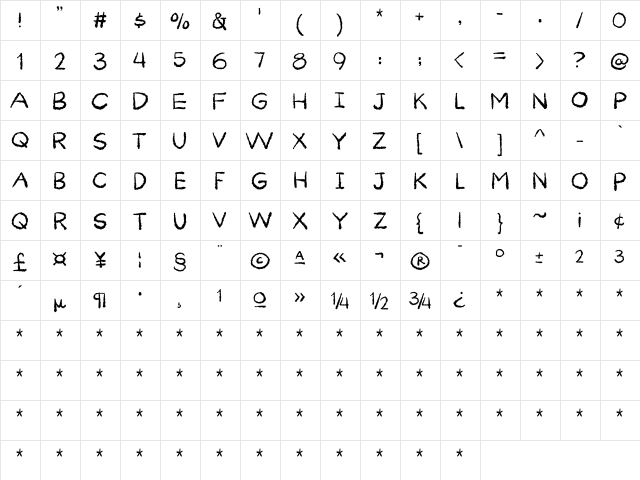
Curiousness DEMO Regular
Design Context for Curiousness DEMO Typeface
Curiousness DEMO is a composed and adaptable typeface that performs quietly and consistently across a wide range of design contexts.